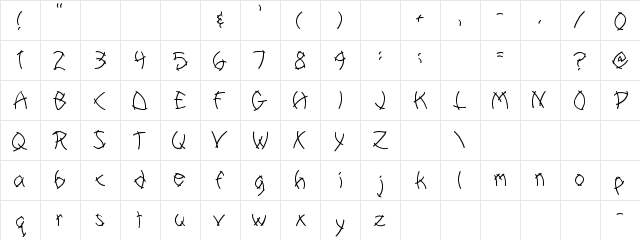
Design Context for SBC Chopsticks Typeface
SBC Chopsticks is a composed and adaptable typeface that performs quietly and consistently across a wide range of design contexts.